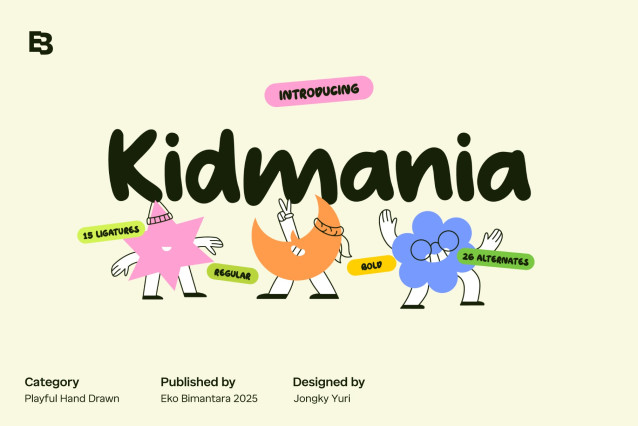
Kidmania Font
Kidmania Font is a playful hand-drawn typeface with a soft and fun personality, designed especially for children-focused branding. Its friendly shapes and natural handwritten feel create a joyful and approachable tone, making it perfect for kids’ brands, educational materials, packaging, posters, and cheerful logos across both print and digital use.